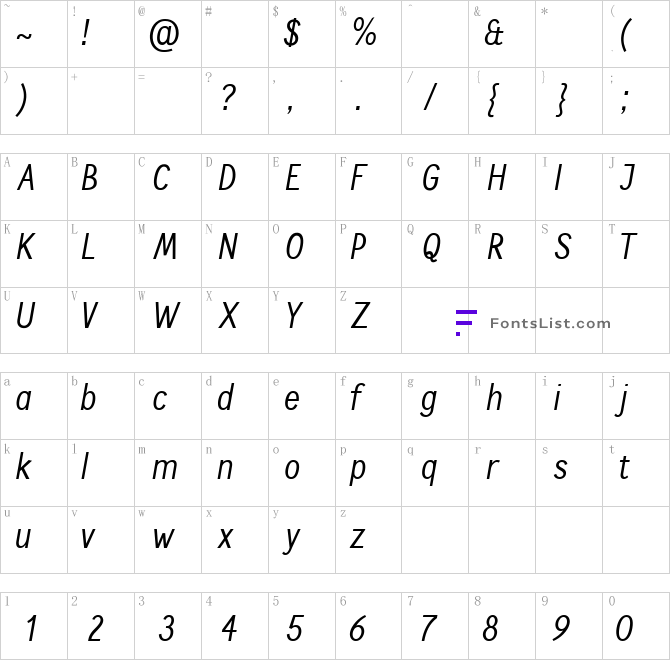
- Font Name:Calling Cards
Calling-Cards-Italic.ttf is a very beautiful artistic font, Calling-Cards-Italic.ttf is widely used in the design and printing of various books and pictures,Calling-Cards-Italic.ttf has a strong visual impact,Calling-Cards-Italic.ttf is a commonly used font in newspapers, magazines and books, and is used in posters, e-commerce Poster design, store design, logo design, font design and other fields.Calling-Cards-Italic.